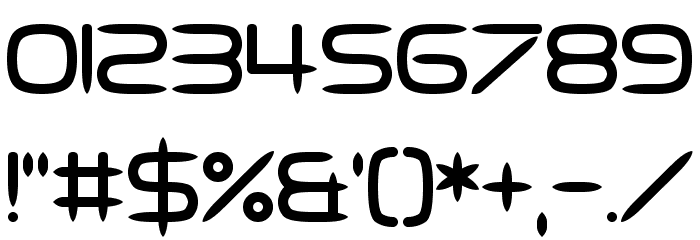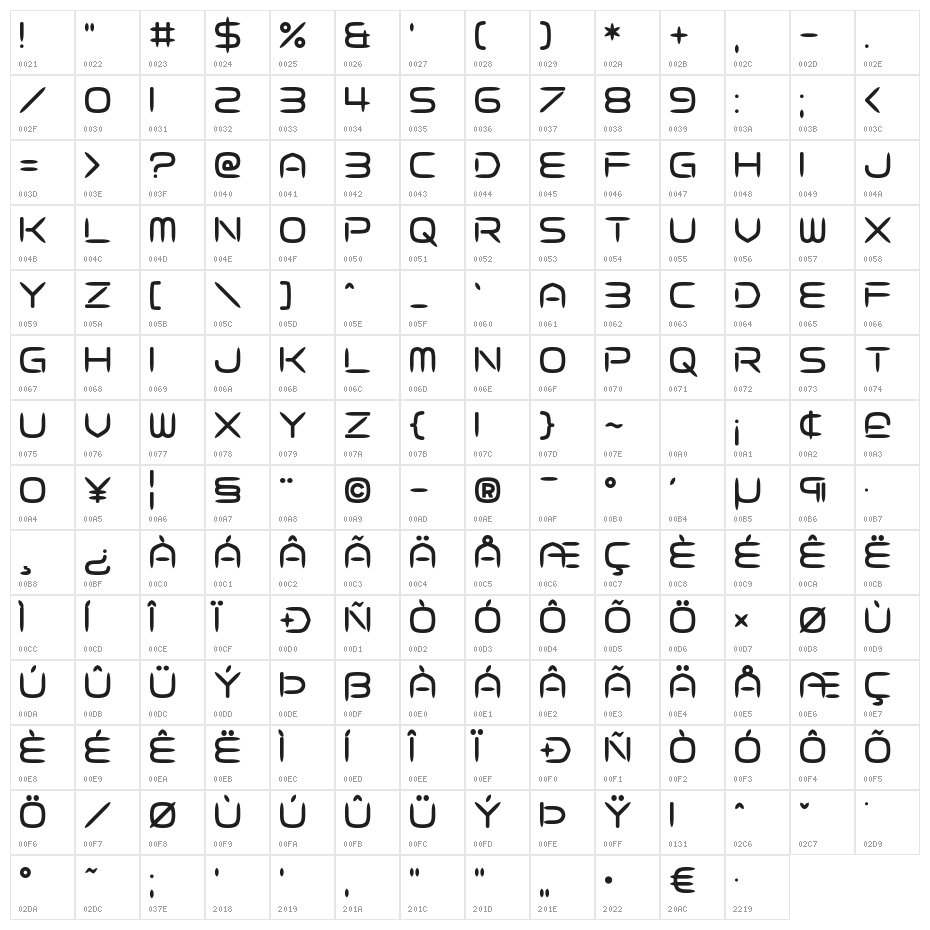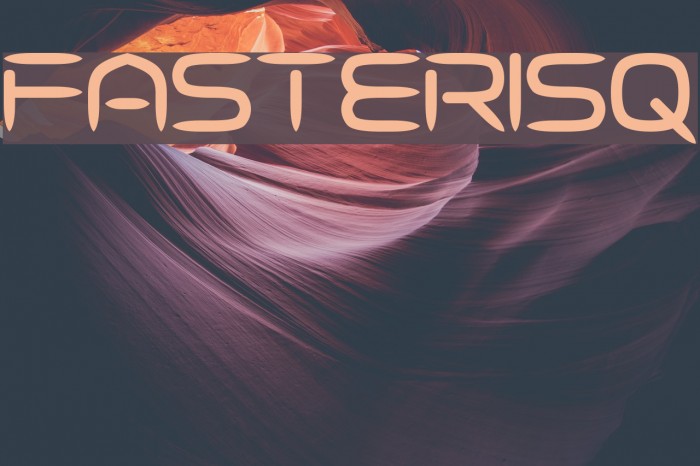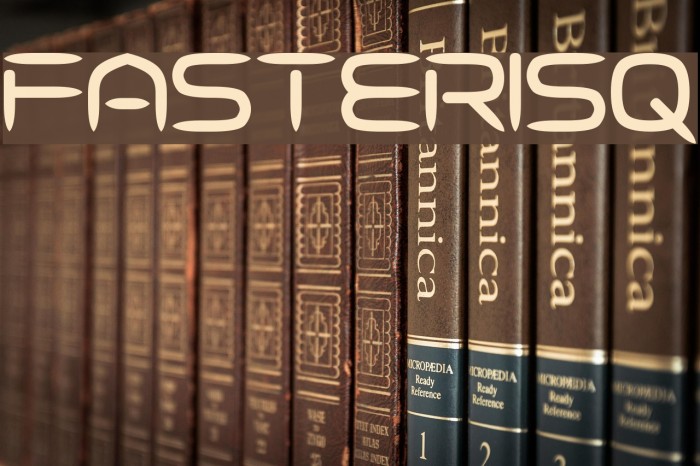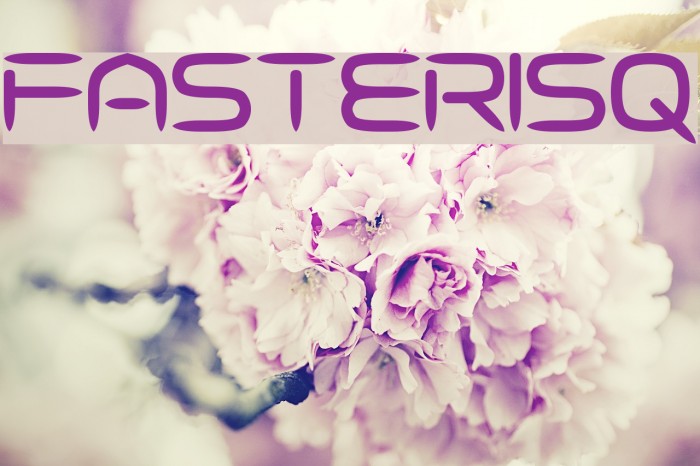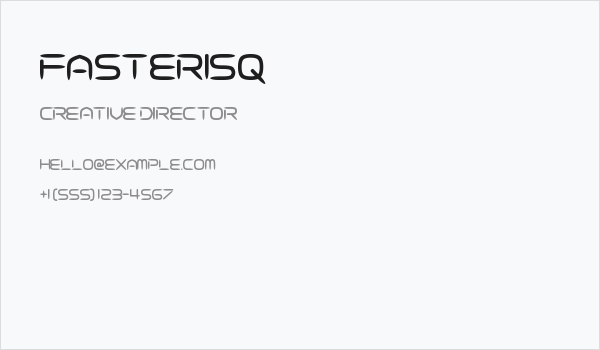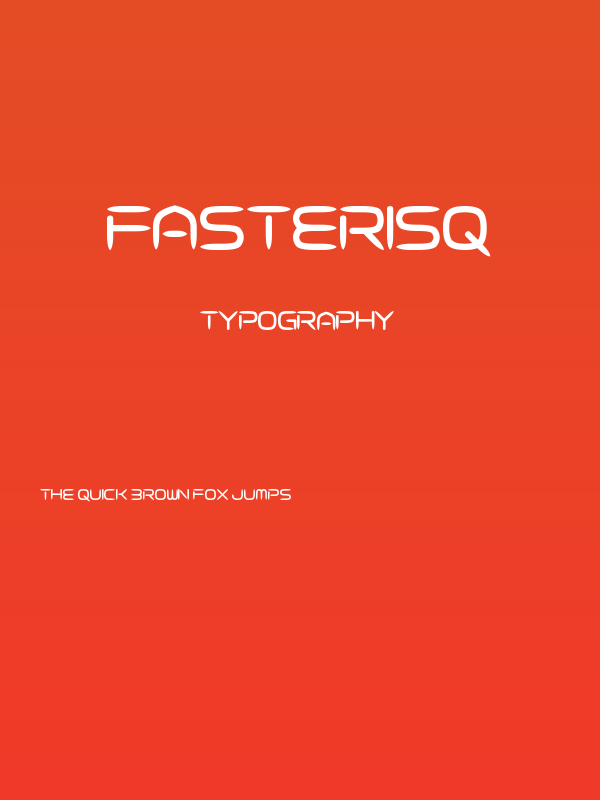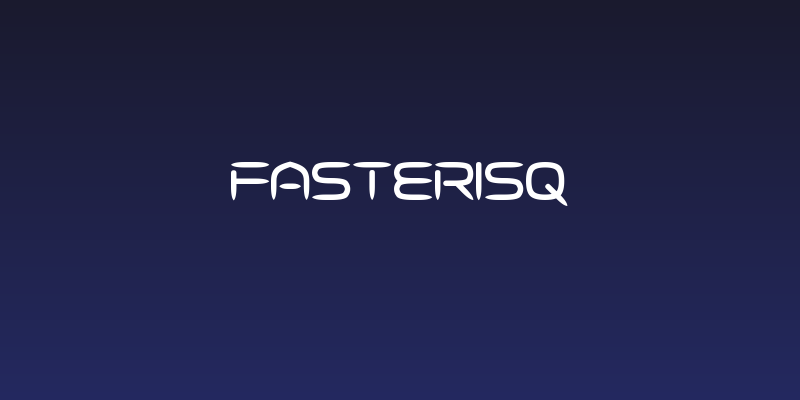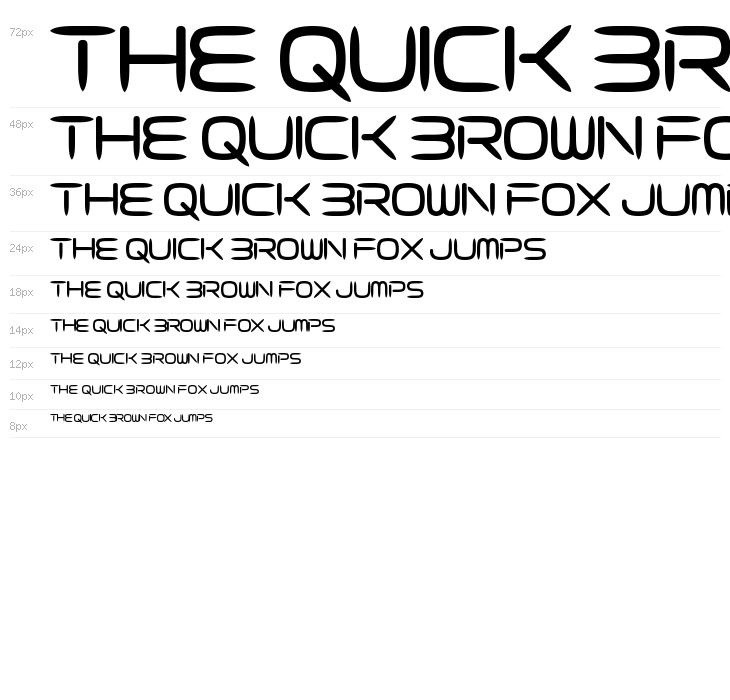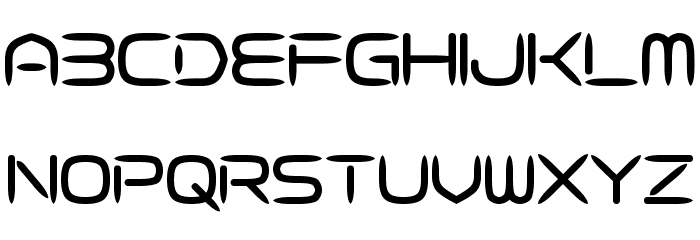
Fasterisq Font
Fasterisq Description
This font features a futuristic and sleek design, characterized by its rounded edges and geometric shapes. The letters are uniform in height, creating a cohesive and modern appearance. The font has a distinct sci-fi aesthetic, with each character appearing as though it has been crafted with precision and care. The numbers and special characters maintain the same stylistic elements, ensuring consistency across all glyphs. This font is ideal for projects that require a modern and innovative look, such as technology branding or digital interfaces.
| Use Case | Logos, Headlines, Digital Interfaces |
| Proposed Projects | Ideal for technology branding, digital interfaces, sci-fi themed projects, and modern advertising. |